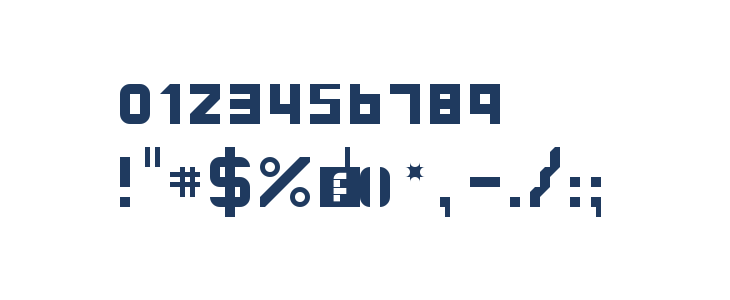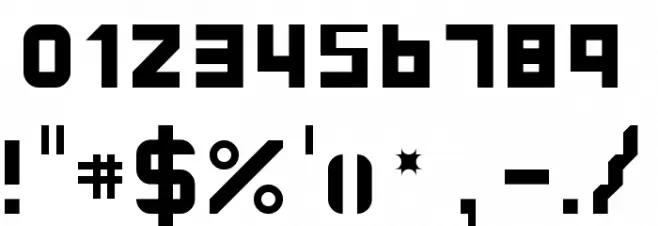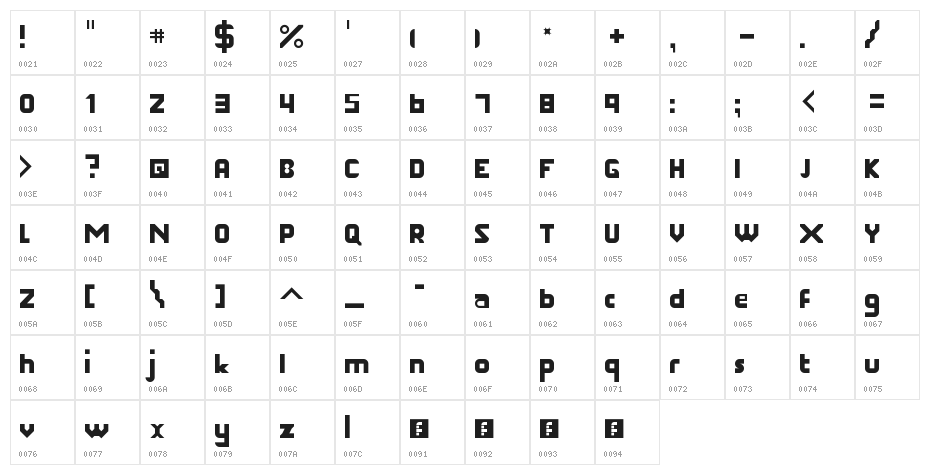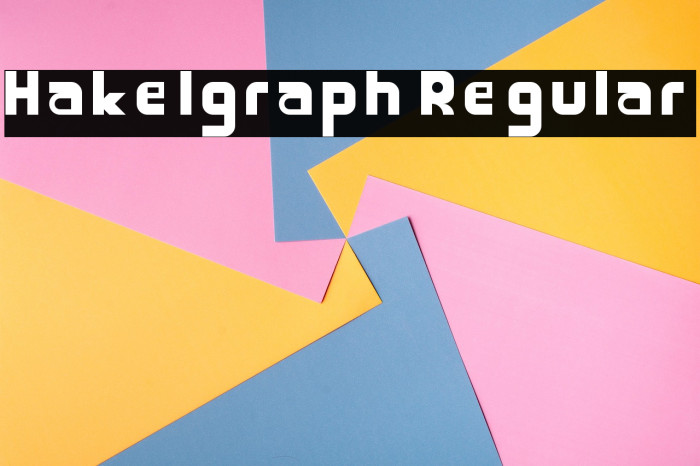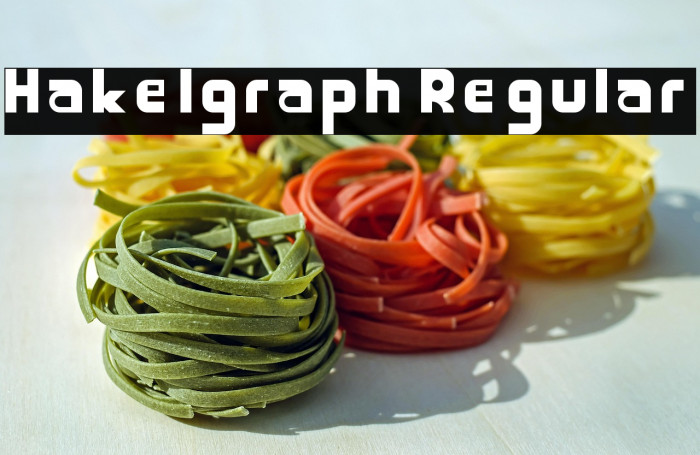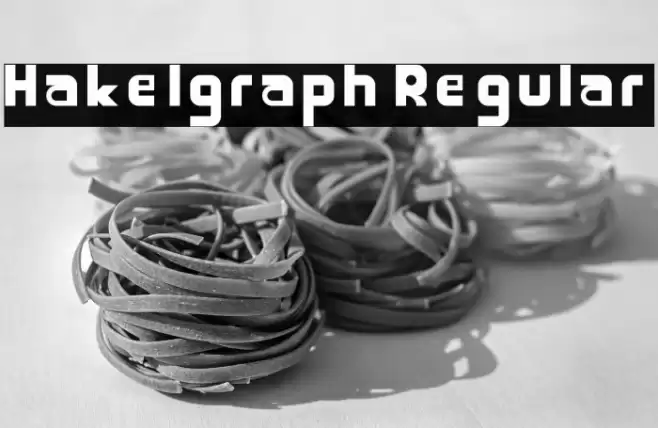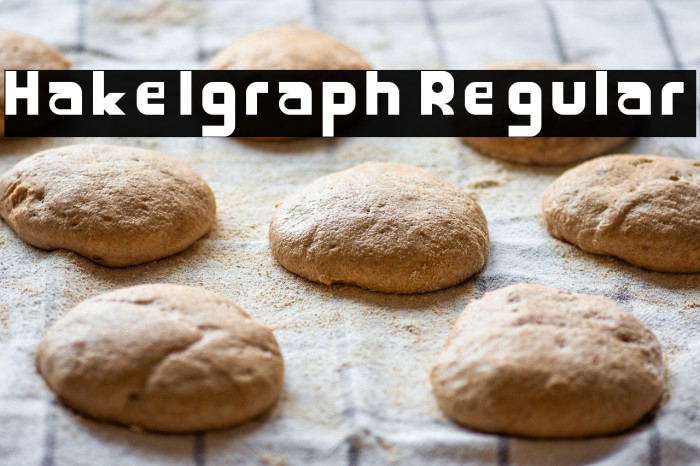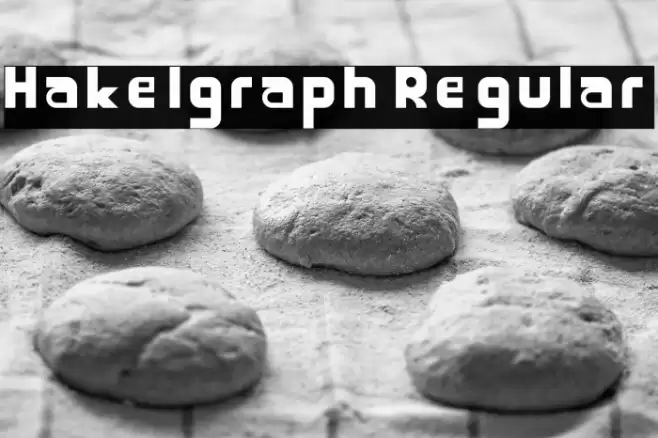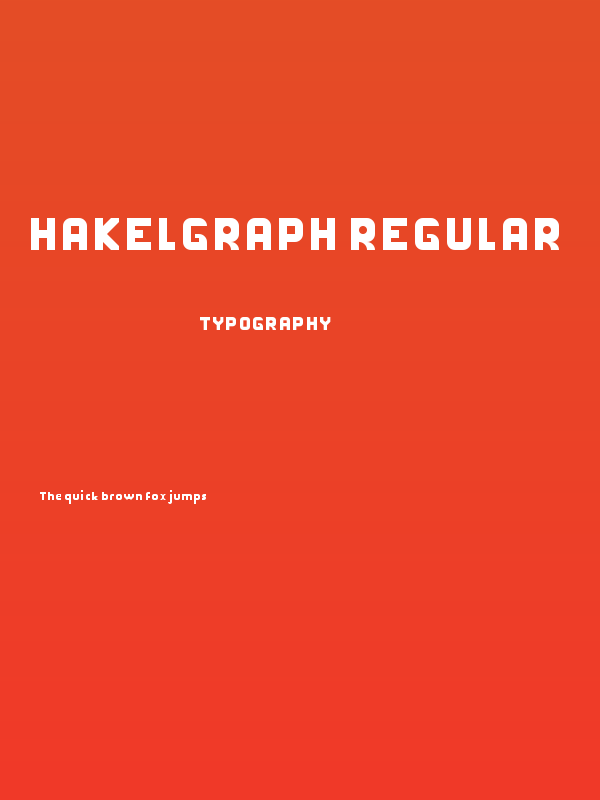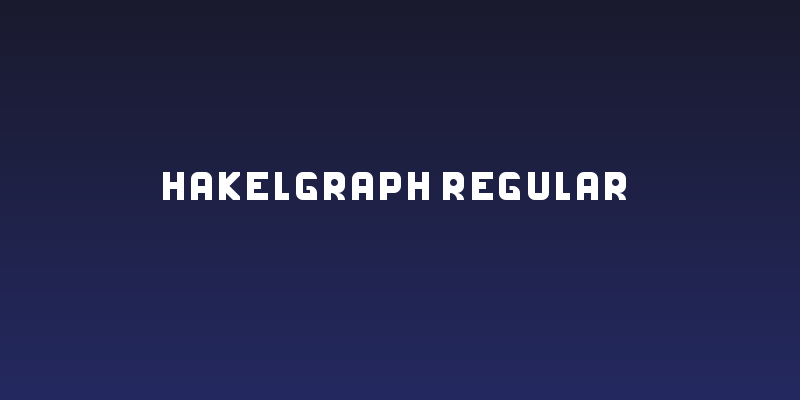
Hakelgraph Regular Font
Hakelgraph Regular Description
This font features a bold and geometric design, characterized by its strong, angular lines and distinct, blocky shapes. The uppercase letters exhibit a uniform height with a modern, industrial feel, while the lowercase letters maintain a consistent style with slightly softer curves. The numerals are robust and align well with the overall aesthetic, providing a cohesive look. Special characters are crafted with the same attention to detail, ensuring versatility across various applications. The font's design is both striking and functional, making it suitable for a range of creative projects.